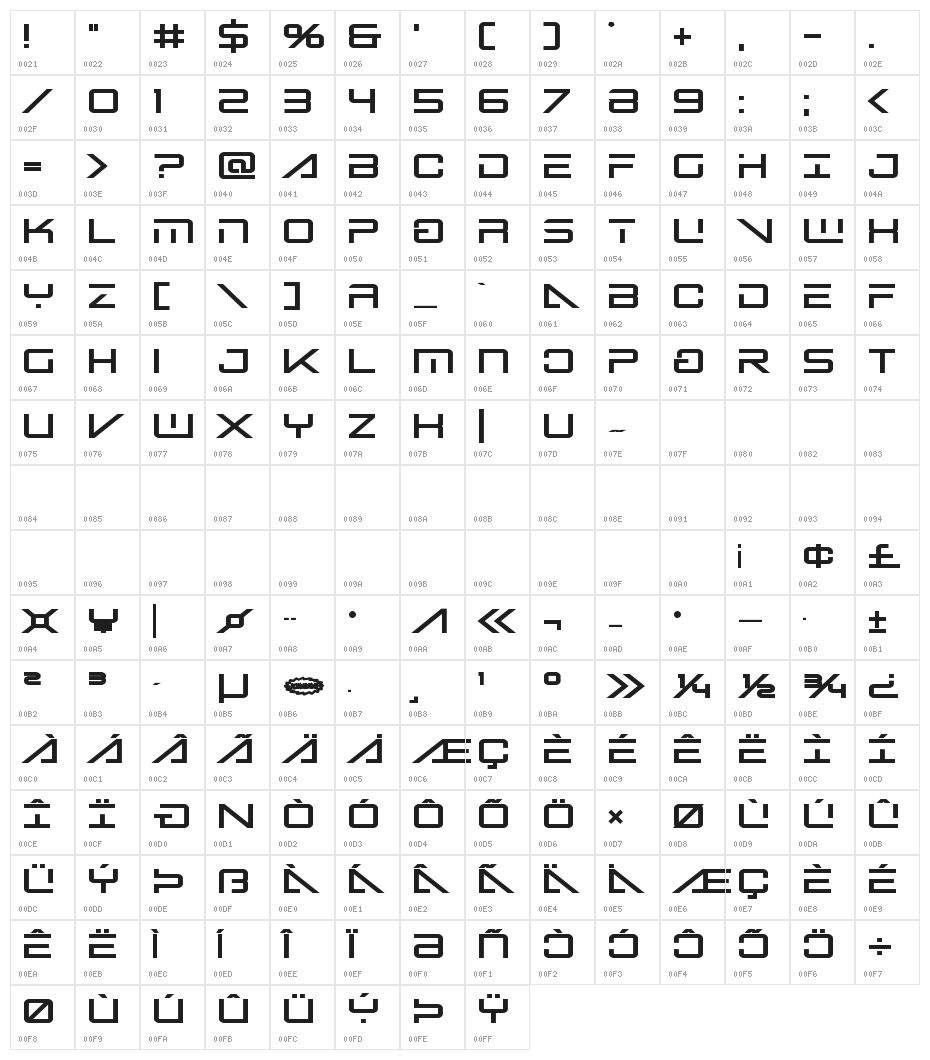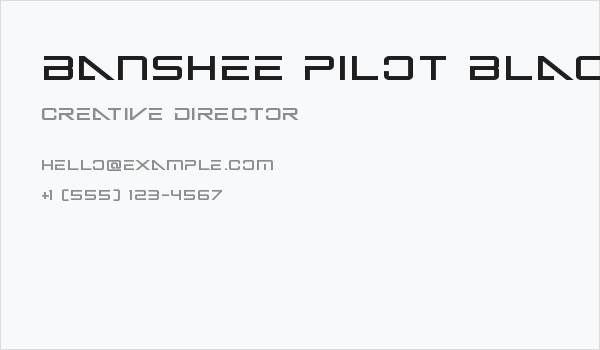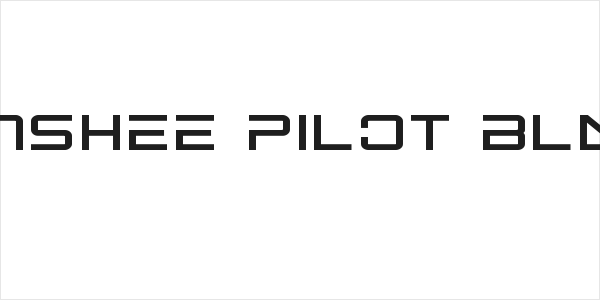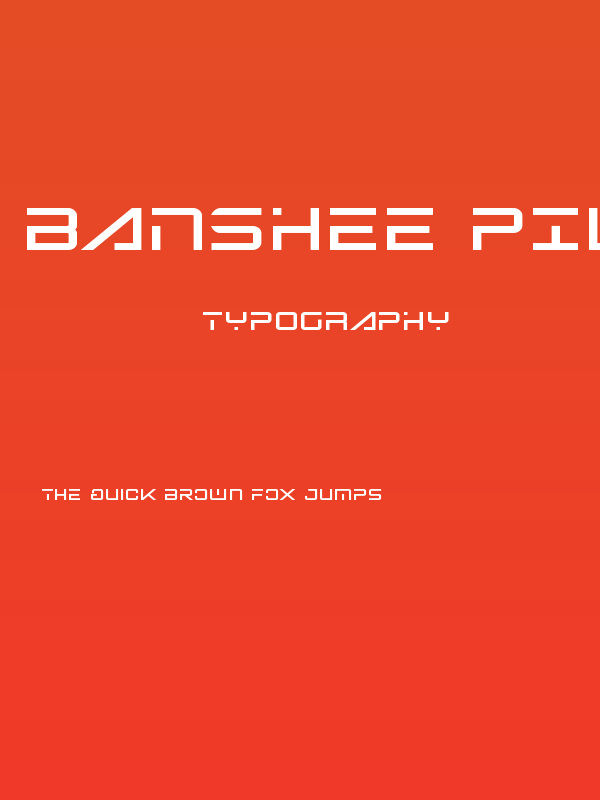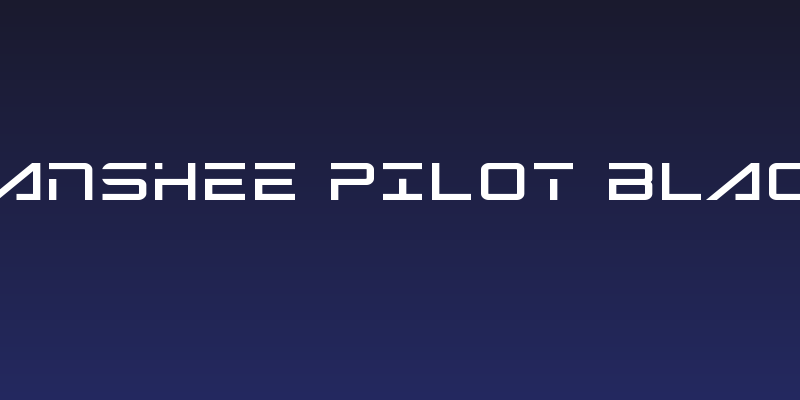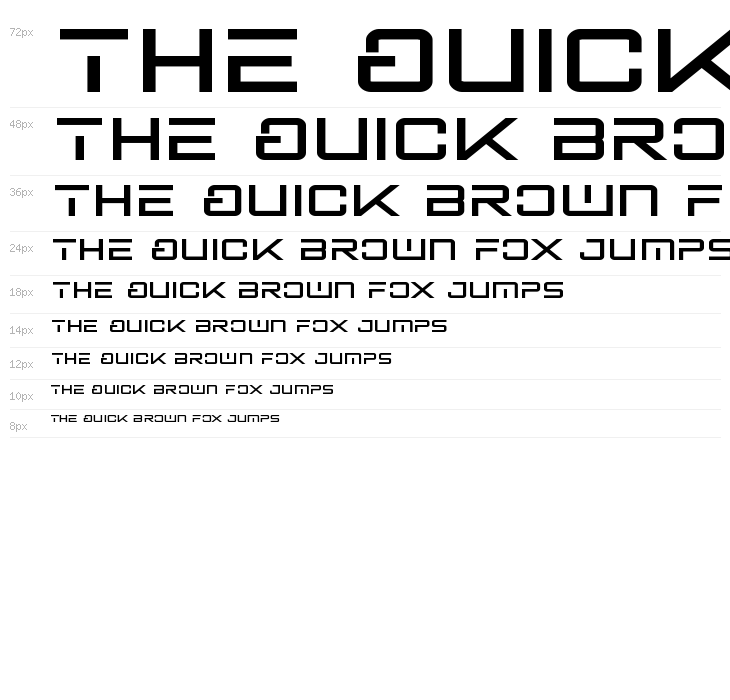
Banshee Pilot Black Font
Banshee Pilot Black Description
This font features a futuristic and geometric design with a distinct sci-fi aesthetic. The characters are constructed with sharp angles and straight lines, giving it a mechanical and technical appearance. The uppercase letters have a uniform height, while the lowercase letters maintain a consistent style, enhancing readability. The numerals are bold and clear, matching the overall angular theme. Special characters are uniquely styled, adding to the font's modern and innovative look. This font is ideal for projects that require a cutting-edge and sleek visual identity.
Proposed ProjectsIdeal for technology branding, video game titles, sci-fi movie posters, and futuristic product packaging.